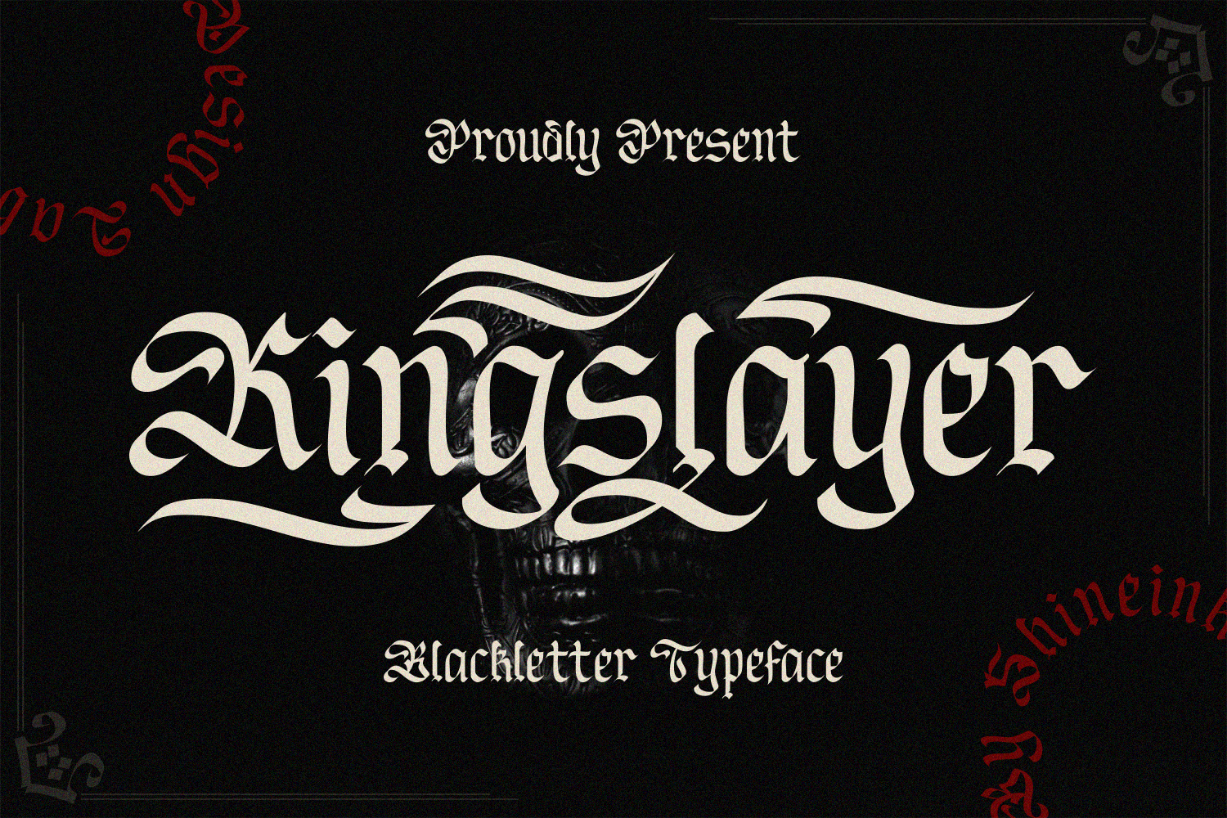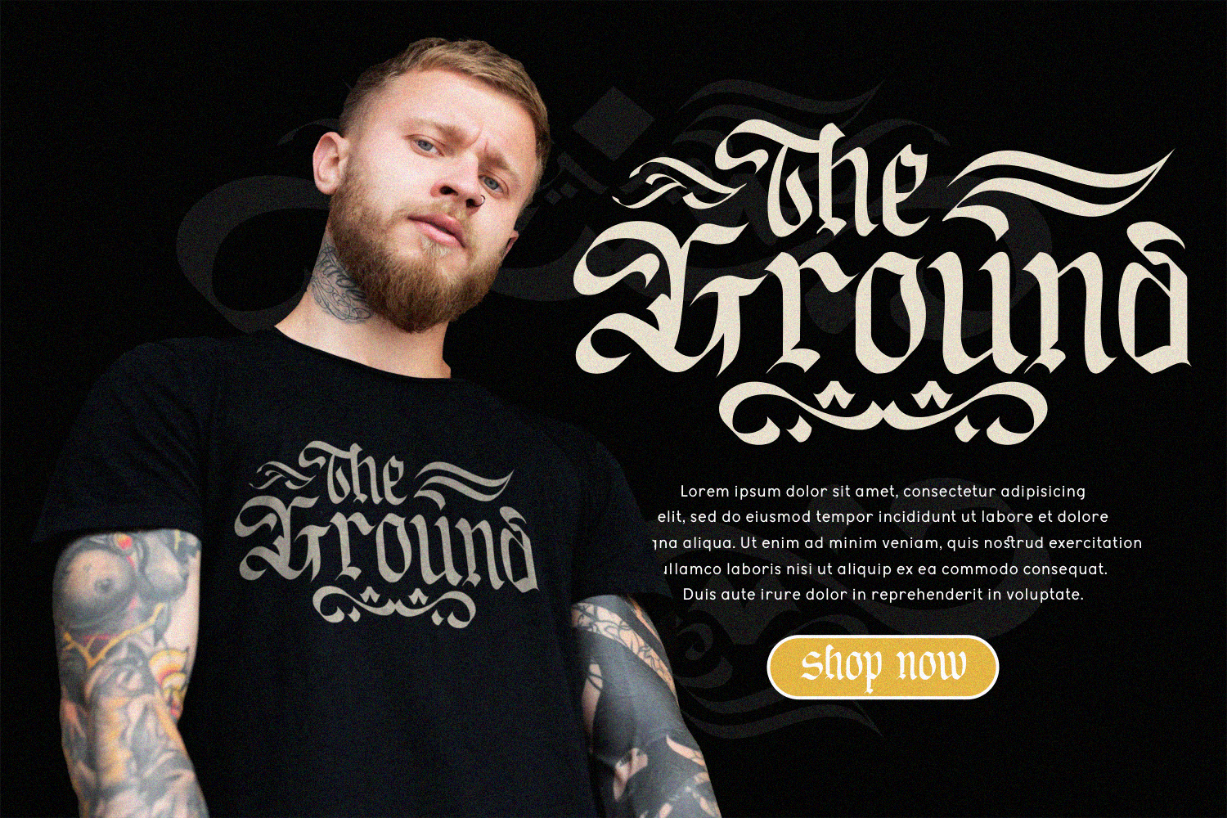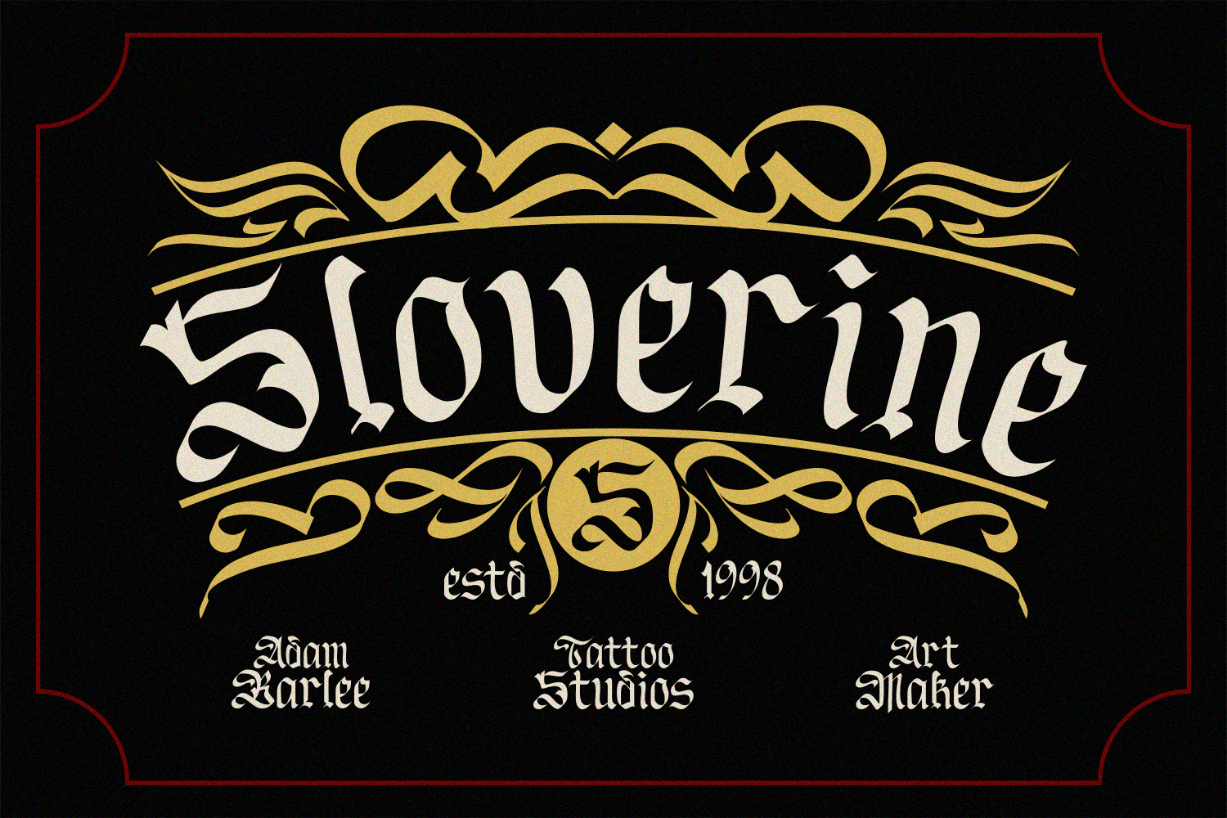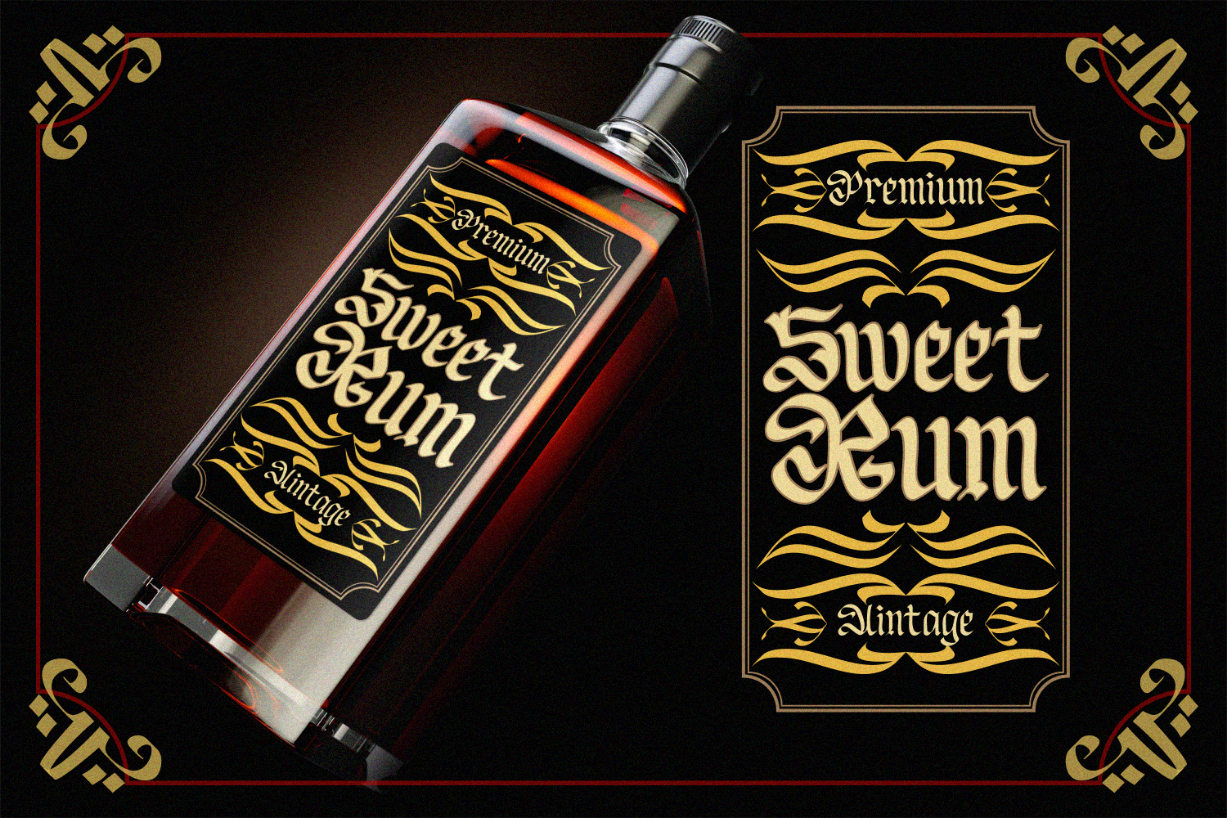
About Kingslayer Font
Kingslayer is a splendid blackletter font that will impress with its stylish features. Use it for product packaging, branding, or other projects that need bold and daring typography! This font is PUA encoded which means you can access all the glyphs and ligatures with ease!